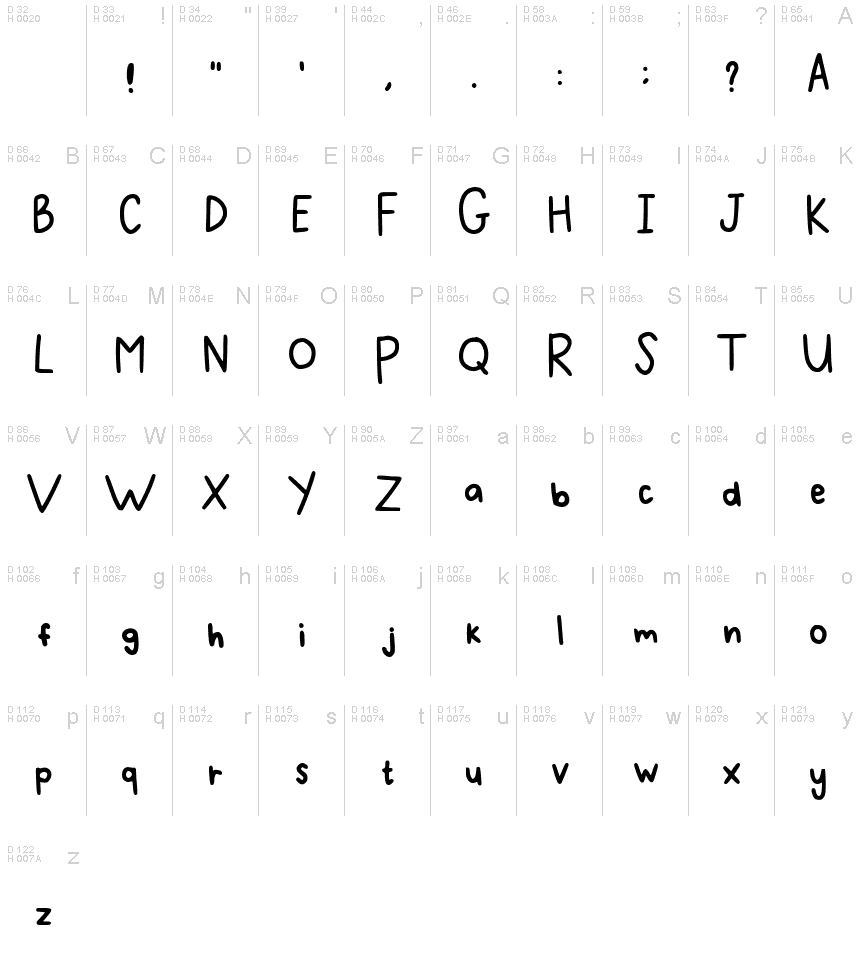
Reys Regular
Reys, a captivating semi-light handwritten font designed by Vanessa Angellica, adds a touch of elegance and authenticity to your projects. Its graceful curves and flowing strokes make it perfect for invitations, greeting cards, and wedding stationery. This versatile typeface also works wonders in branding materials, capturing attention with its unique charm on logos, packaging designs, and social media graphics. Reys effortlessly blends modern aesthetics with a hint of vintage flair, making it an ideal choice for fashion lookbooks or boutique signage. Stand out from the crowd and let Reys elevate your creative endeavors to new heights.